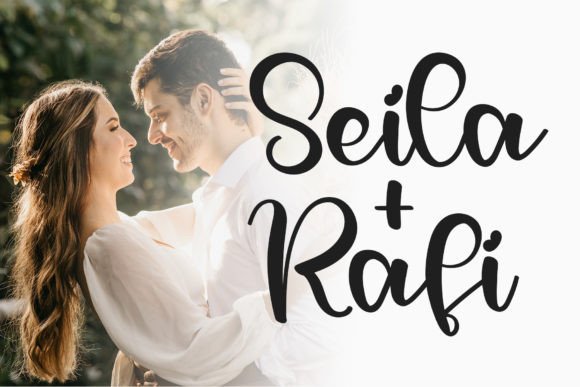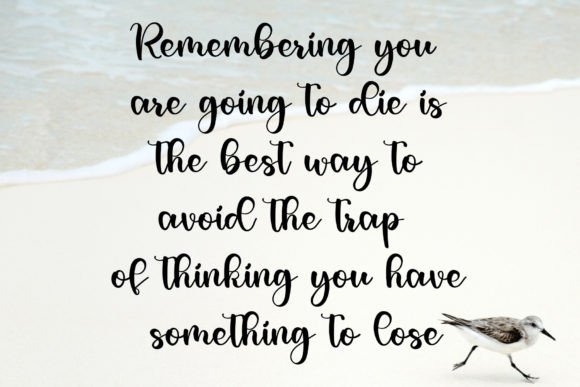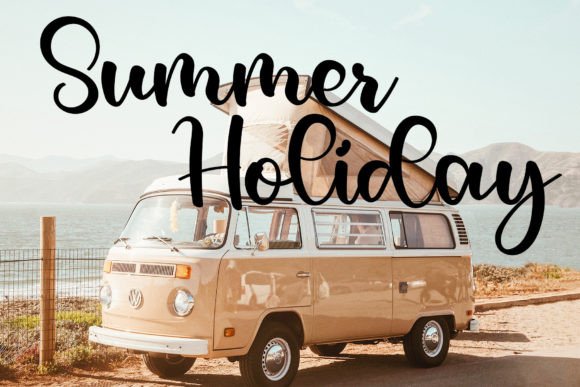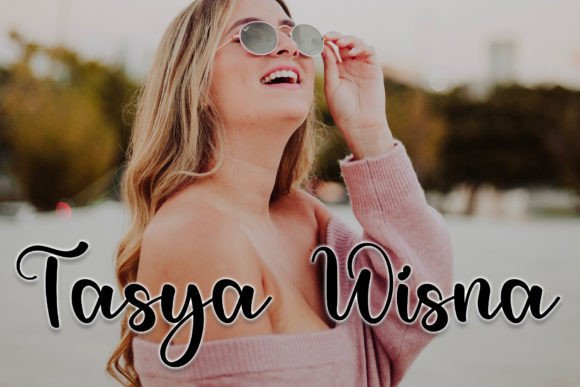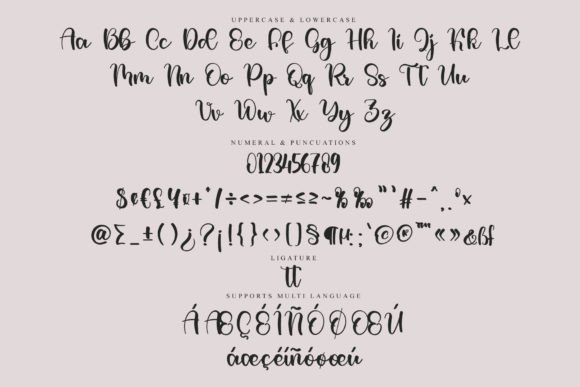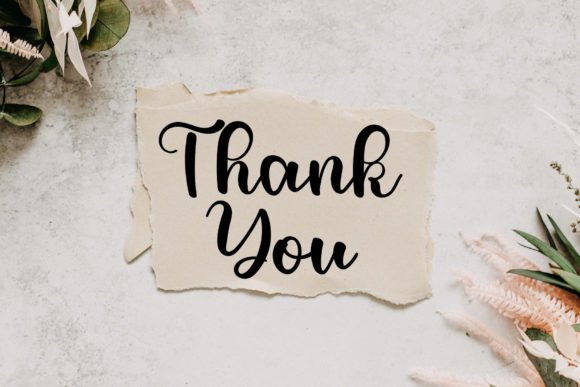
Introducing Endorse Font: Elevate Your Designs with Timeless Elegance
Are you on the hunt for a font that exudes sophistication, elegance, and a touch of classic charm? Look no further than Endorse Font, a stylish handwritten typeface that brings a contemporary atmosphere to your designs. Inspired by the timeless beauty of classic calligraphy, Endorse is the perfect choice for designers and crafters seeking to add a level of refinement to their projects.
The Inspiration Behind Endorse Font
Endorse Font draws its inspiration from the world of traditional calligraphy, where the art of beautiful handwriting is revered. The creators of Endorse have meticulously crafted each letterform to reflect the balance, harmony, and precision that define classic calligraphy. The result is a font that feels both nostalgic and modern, making it an excellent addition to any design project.
Key Features of Endorse Font
- Contemporary Atmosphere: Despite its classic roots, Endorse Font boasts a fresh and modern vibe that’s sure to captivate your audience.
- Impeccable Form: Every letter in Endorse has been carefully designed to ensure perfect balance and harmony, making it a joy to read and behold.
- Balanced and Varied: The font features a range of characters and ligatures, providing you with ample opportunities to add personality and flair to your text.
Why Choose Endorse Font?
Endorse Font is more than just a typeface – it’s a design statement. By incorporating Endorse into your projects, you’ll instantly elevate the aesthetic appeal and convey a sense of luxury, sophistication, and attention to detail. Whether you’re working on a branding campaign, packaging design, or digital content, Endorse Font is the perfect choice for those who demand the best.
Endorse Font is an excellent addition to any designer’s or crafter’s toolkit. Its versatility and elegance make it suitable for a wide range of applications, including:
- Branding and Logo Design: Create a lasting impression with a custom logo that showcases the sophistication of Endorse Font.
- Digital Content: Enhance your blog posts, social media graphics, and website content with a touch of elegance and refinement.
- Packaging Design: Stand out on store shelves with packaging that features the beautiful, hand-crafted look of Endorse Font.
- Stationery and Invitations: Add a personal touch to your stationery, invitations, and greeting cards with the classic charm of Endorse.
Tips for Using Endorse Font Effectively
To get the most out of Endorse Font, consider the following tips:
- Pair with Simplicity: Endorse Font shines brightest when paired with simple, clean design elements. Avoid clutter and let the font take center stage.
- Experiment with Colors: While Endorse Font looks stunning in classic black and white, don’t be afraid to experiment with colors that match your brand’s aesthetic.
- Use Ligatures: Take advantage of Endorse Font’s ligatures to add a touch of personality and whimsy to your text.
Endorse Font is a masterpiece of modern calligraphy, offering designers and crafters a unique opportunity to elevate their projects with timeless elegance. Its impeccable form, balanced design, and contemporary atmosphere make it the perfect choice for those seeking to add a level of sophistication to their work. Whether you’re a seasoned designer or a crafter looking to make a statement, Endorse Font is sure to inspire and delight.